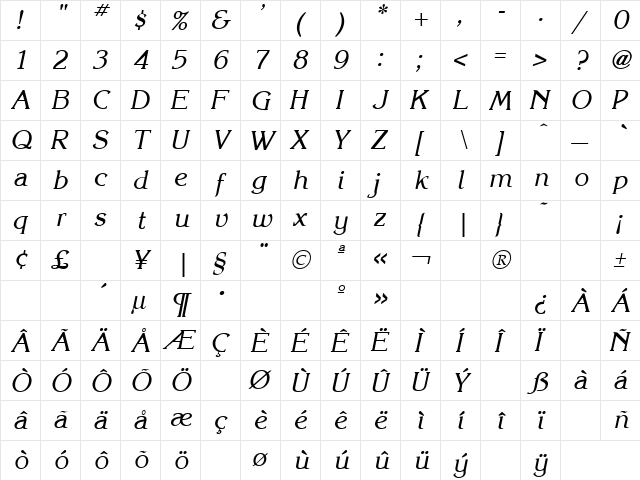
I Wanna Know Why 1 Italic
Design Context for I Wanna Know Why 1 Typeface
I Wanna Know Why 1 is a composed and adaptable typeface that performs quietly and consistently across a wide range of design contexts. The dynamic lean of this cut emphasises speed and emphasis in any layout.
Pro Tip: Use I Wanna Know Why 1 for emphasis, pull quotes, and subheadings where its slanted energy can add rhythm to the layout.